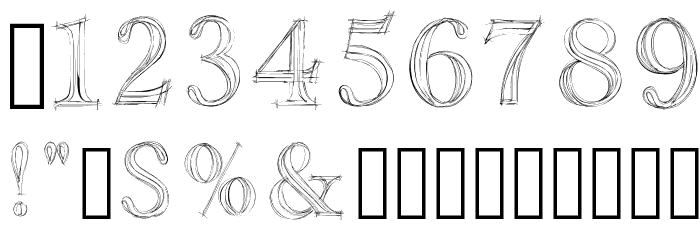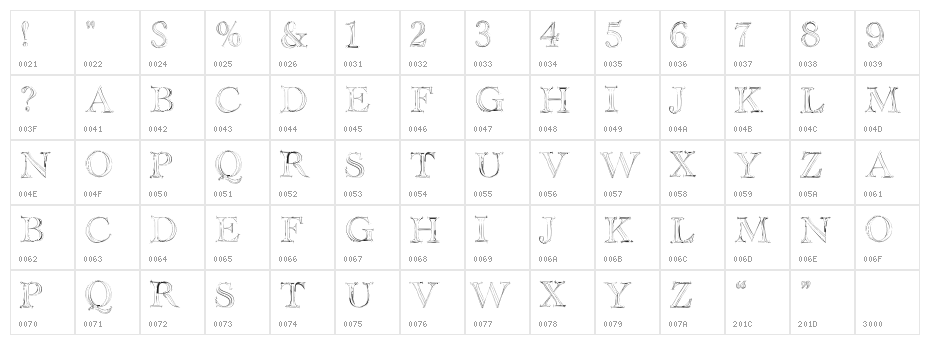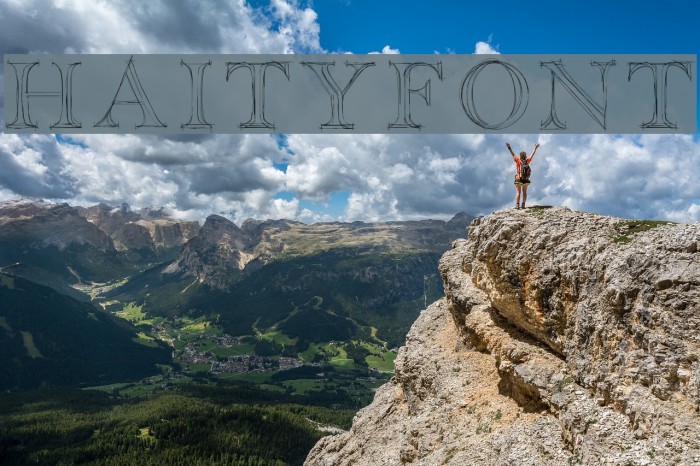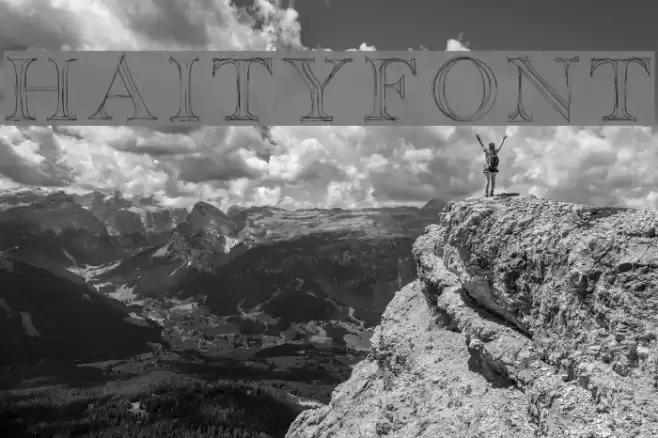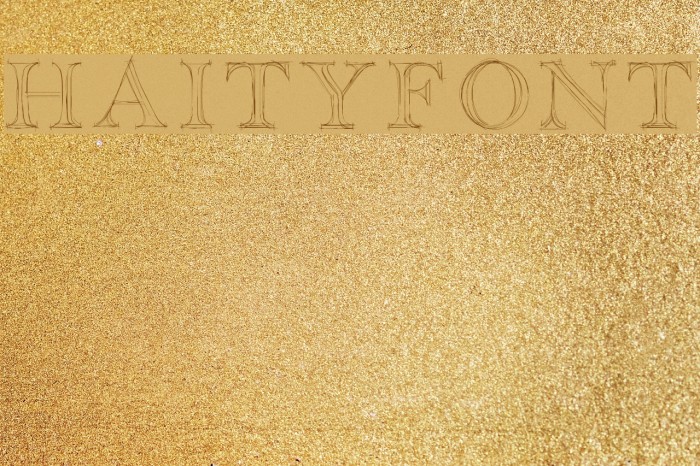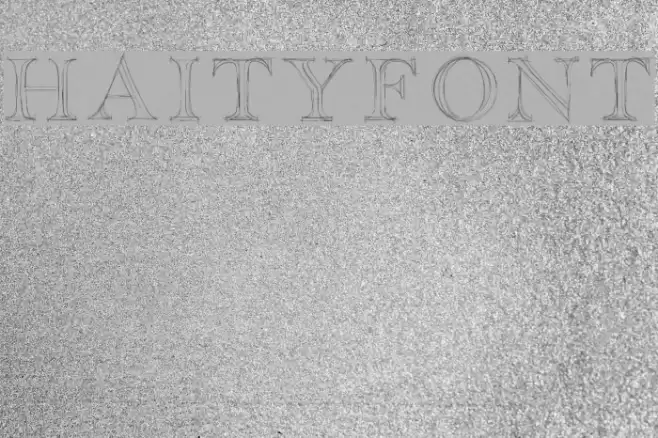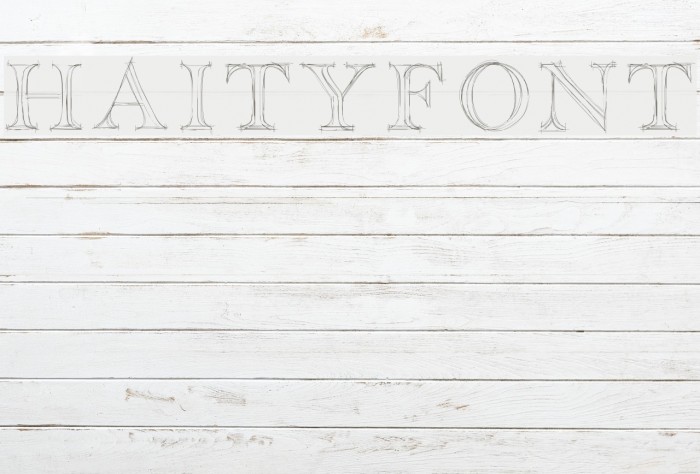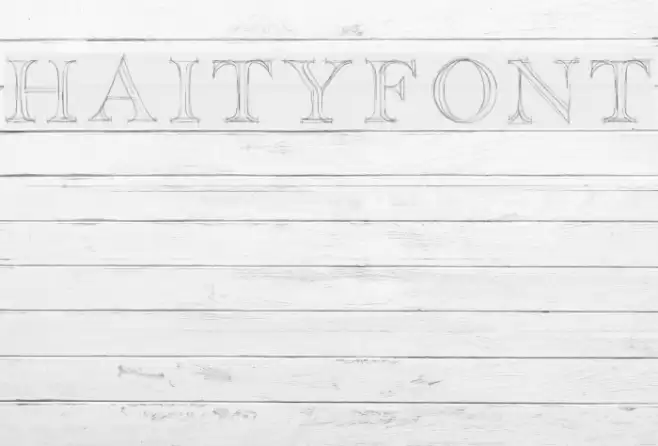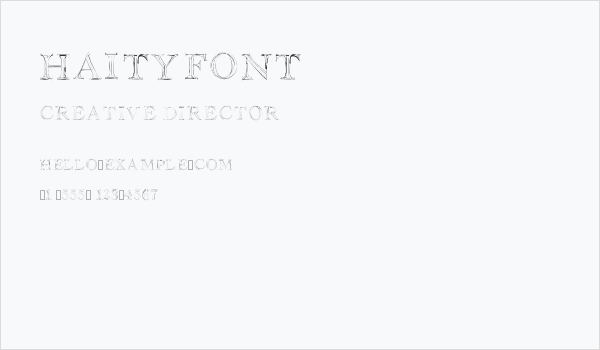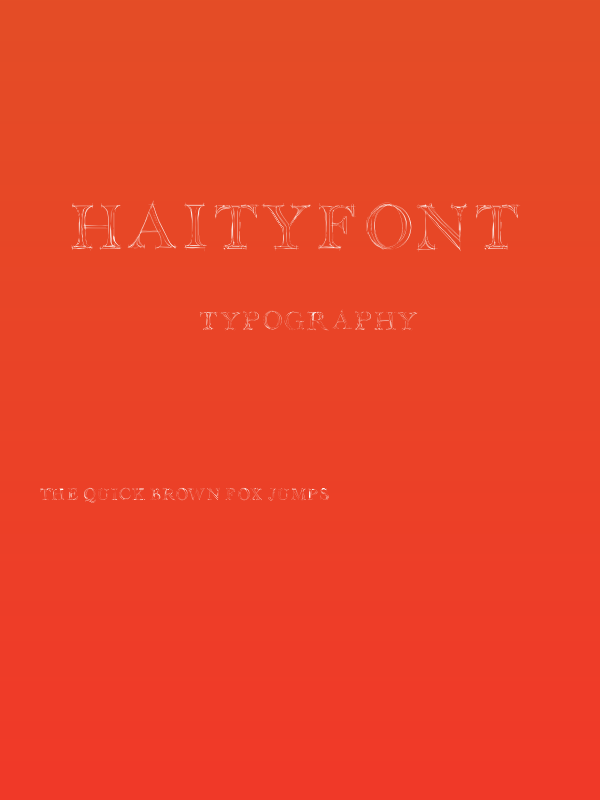
Haityfont Font
Haityfont Description
This font features a unique, hand-drawn style with a sketch-like appearance. Each character is outlined with a rough, textured line that gives it an artistic and informal feel. The uppercase and lowercase letters maintain a consistent design, with slightly exaggerated serifs and curves that add to the whimsical nature of the font. The numbers and special characters follow the same sketchy aesthetic, making them blend seamlessly with the alphabet. The overall look is playful yet sophisticated, suitable for creative projects that require a touch of originality.
| Overall Style | Artistic, Whimsical |
| Proposed Projects | Ideal for artistic projects, children's book titles, creative branding, and unique invitations. |